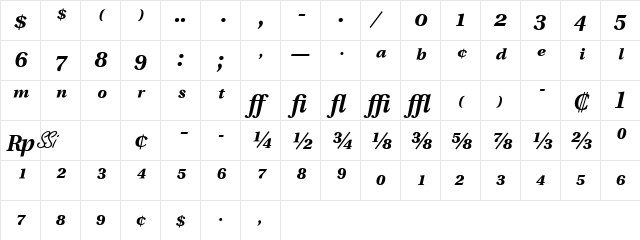
Veracity Pro Black SSi Bold Italic Font Preview
Design Context for Veracity Pro Black SSi Typeface
Veracity Pro Black SSi offers clean, dependable letterforms without strong stylistic allegiance, making it a practical choice for designers who need flexibility. Its italic angle brings a sense of urgency and motion to the letterforms. The heavy weight commands attention and anchors typographic hierarchies.